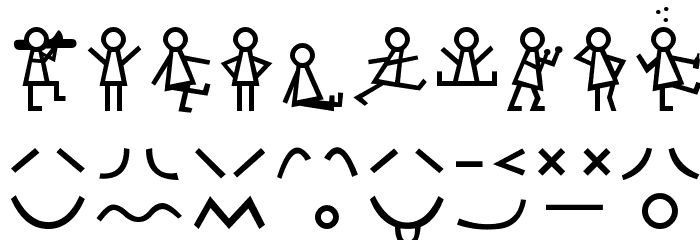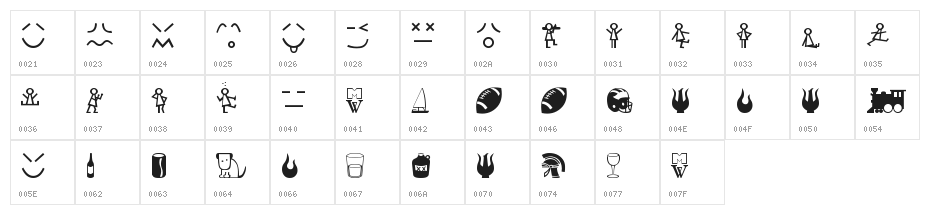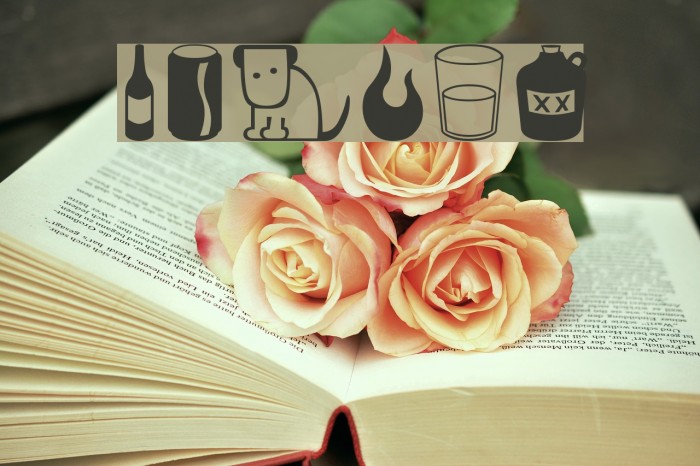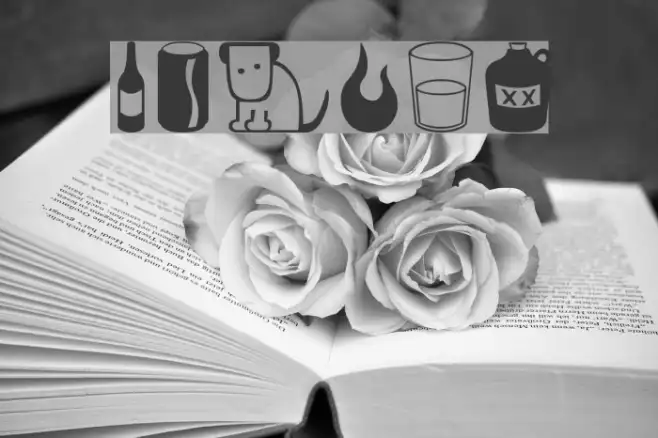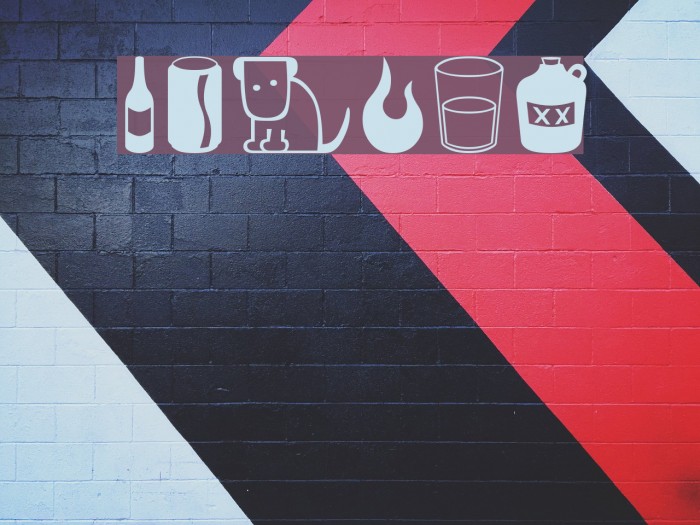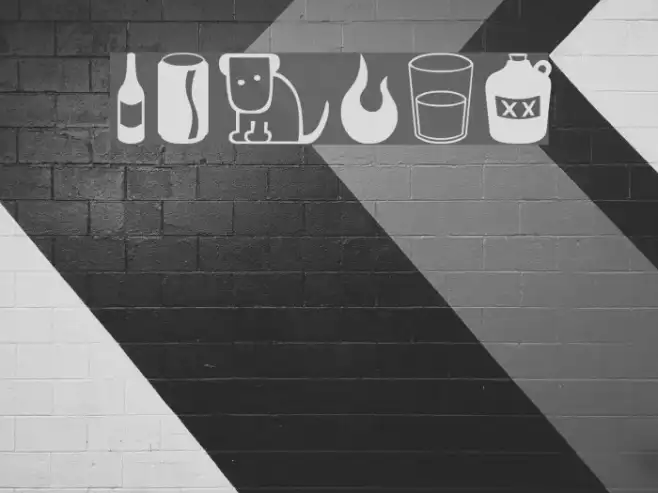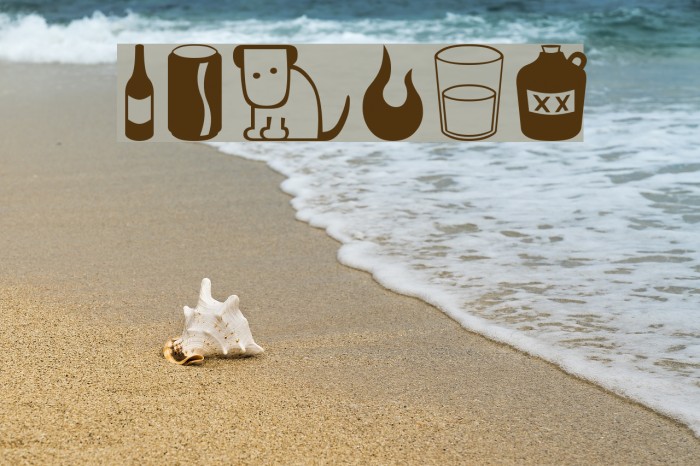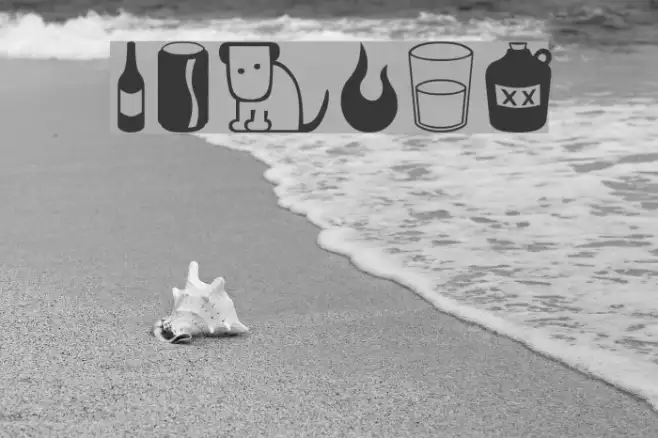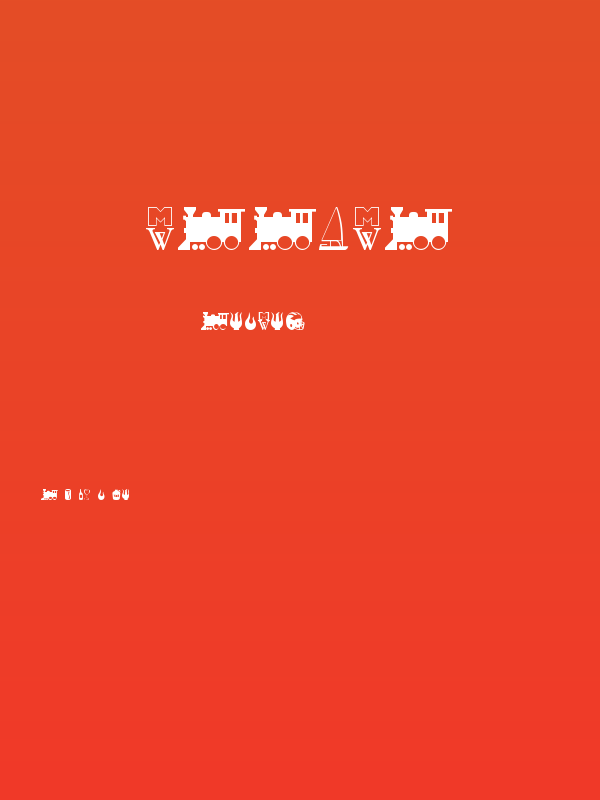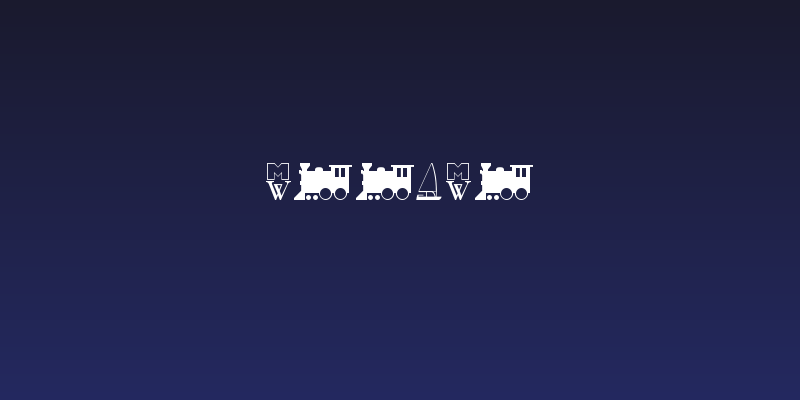
Mattbats Font
Mattbats Description
| Overall Style | Playful, Cartoonish, Decorative |
| Use Case | Icons, Decorative elements, Posters, Invitations |
| Proposed Projects | Party invitations, children's materials, playful branding, event posters, educational worksheets, and icon-based games. |